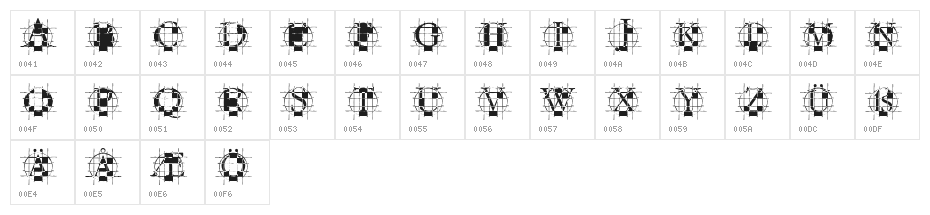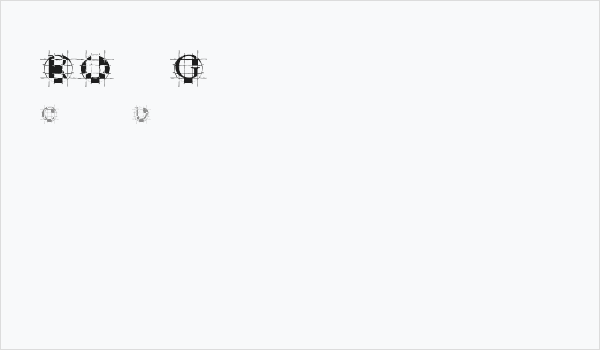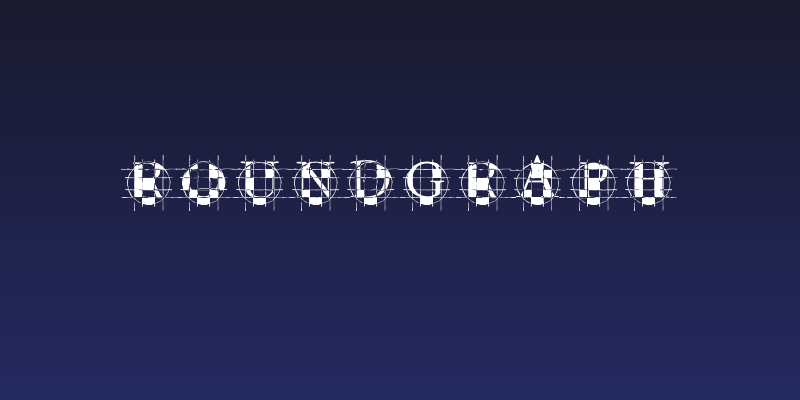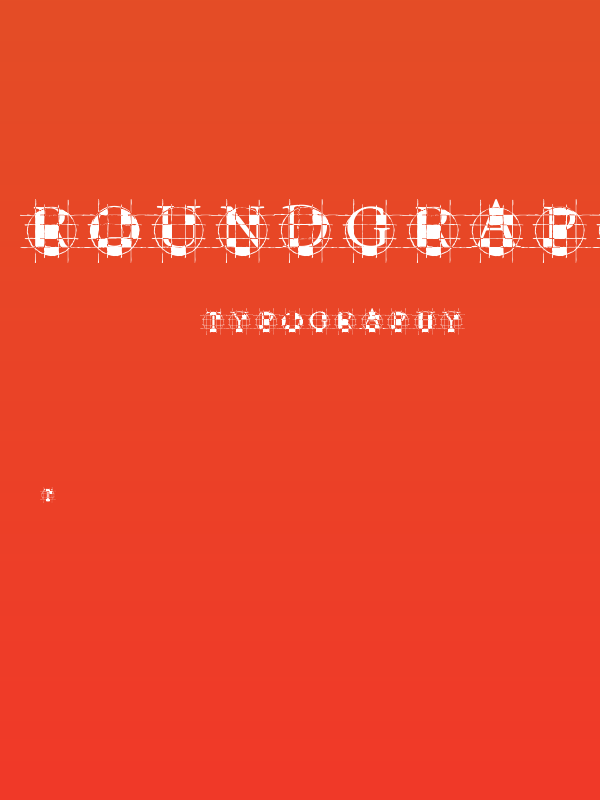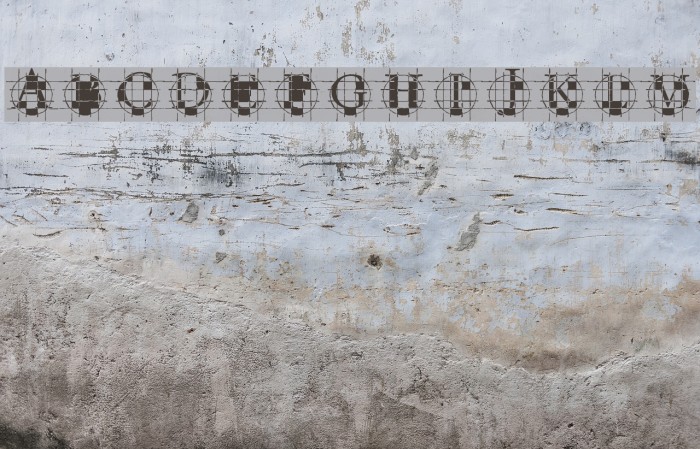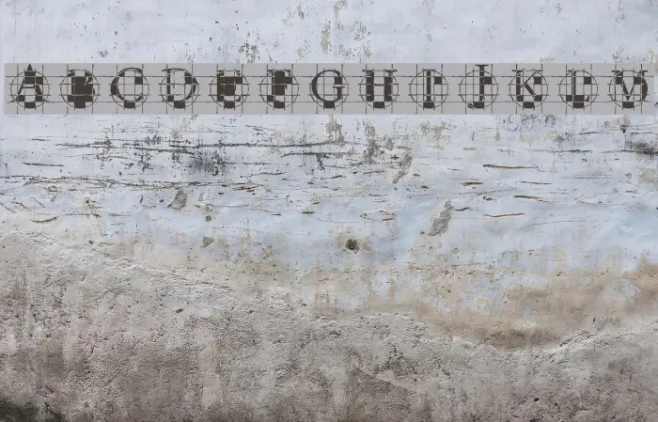
ROundGraph Font
ROundGraph Description
This font features a unique and intricate design, characterized by its geometric and technical appearance. Each letter is enclosed within a grid-like structure, giving it a mechanical and precise look. The characters are bold and have a consistent thickness, with sharp angles and straight lines dominating the design. The overall style is reminiscent of architectural blueprints or technical drawings, making it stand out with its distinct and modern aesthetic.